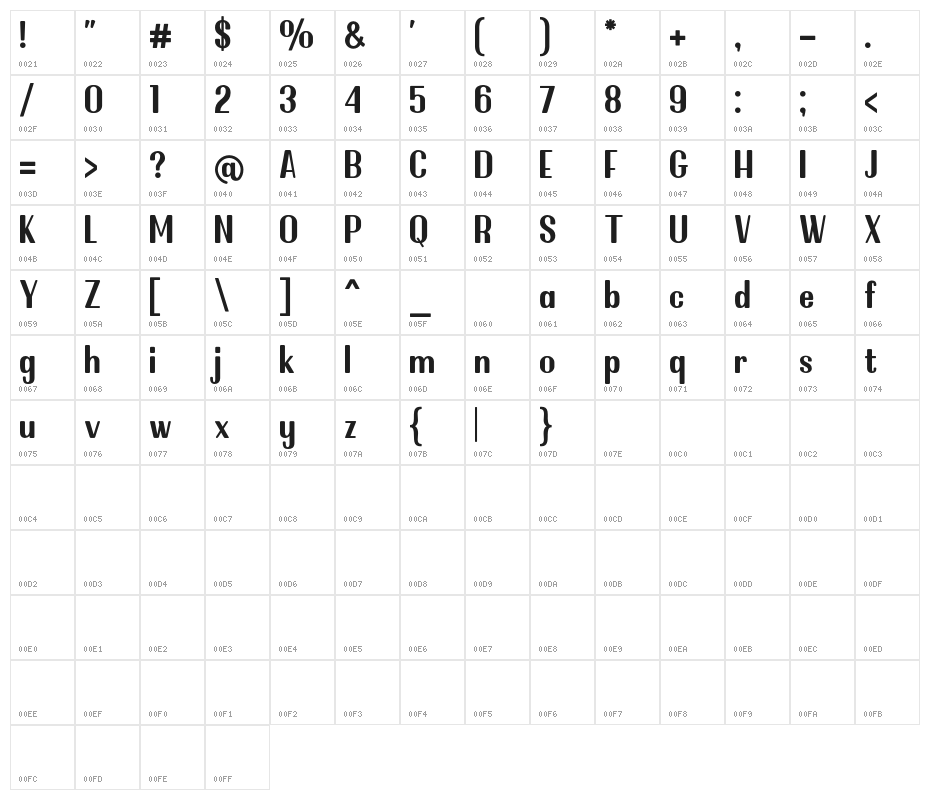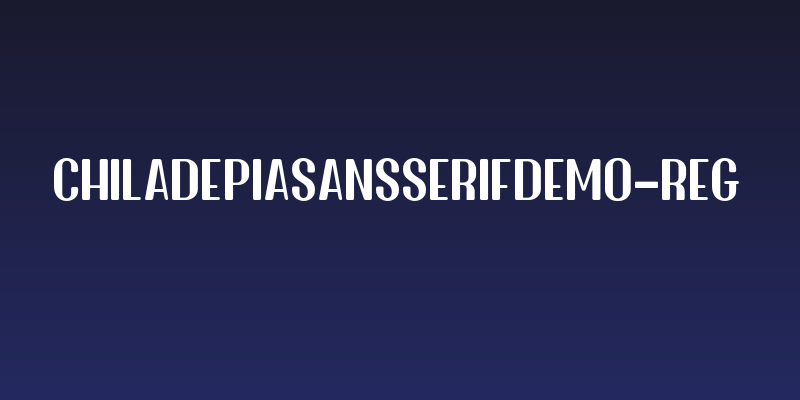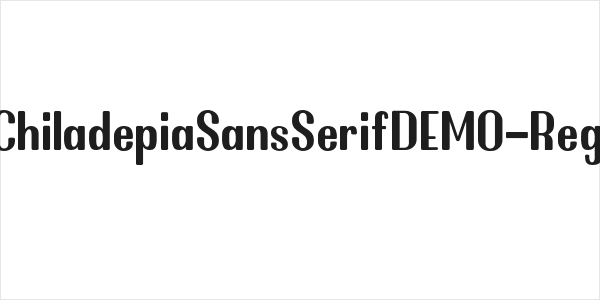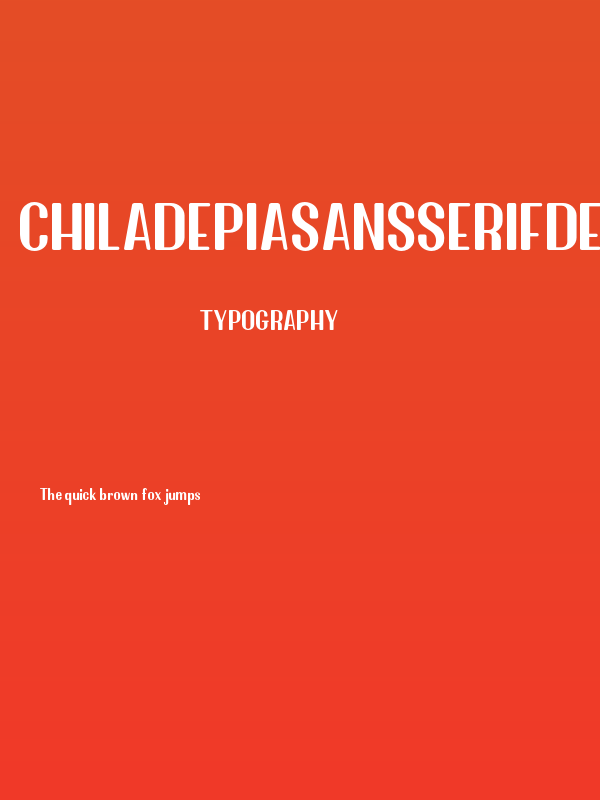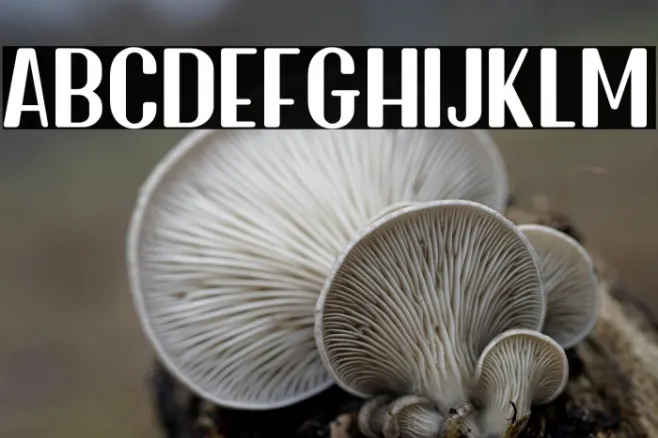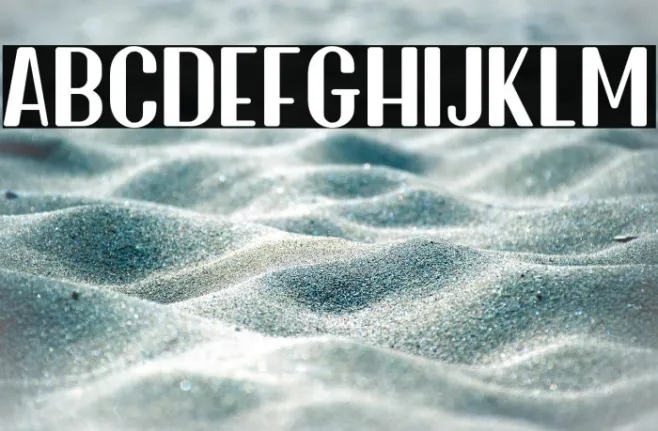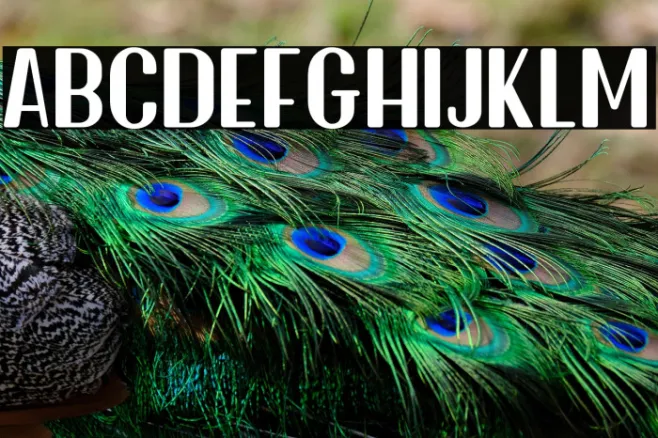
ChiladepiaSansSerifDEMO-Reg Font
ChiladepiaSansSerifDEMO-Reg Description
This font features a bold and modern sans-serif style with a strong presence. The characters are uniformly thick, providing a consistent and clean look. The uppercase letters are tall and commanding, while the lowercase letters maintain a balanced and approachable appearance. The numerals are clear and easy to read, making them suitable for various applications. The special characters are well-defined, adding versatility to the font. Overall, this font exudes a contemporary vibe, perfect for making a statement in any design project.
| Use Case | Headlines, Logos, Advertising |
| Proposed Projects | Ideal for branding, advertising, headlines, and digital media projects that require a modern and bold aesthetic. |